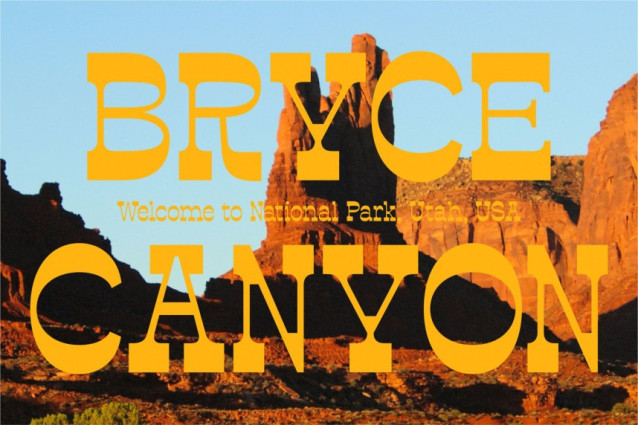
Estripe Font
Estripe Font: The Bold Flip on Classic Style. Step away from the ordinary with Estripe, the Reversed Contrast Serif that turns traditional typography on its head! Estripe features a high-drama, ultra-stylish design, deliberately flipping the conventional serif structure: thick horizontal strokes meet razor-thin vertical stems. This striking reversal creates an unforgettable, almost electric effect, drawing the eye instantly to your titles and logos.
Estripe is where vintage charm meets modern luxury. It carries the eccentric flair of classic Italian Old Style fonts, making it the perfect choice for projects that demand attention, sophistication, and a touch of the avant-garde.